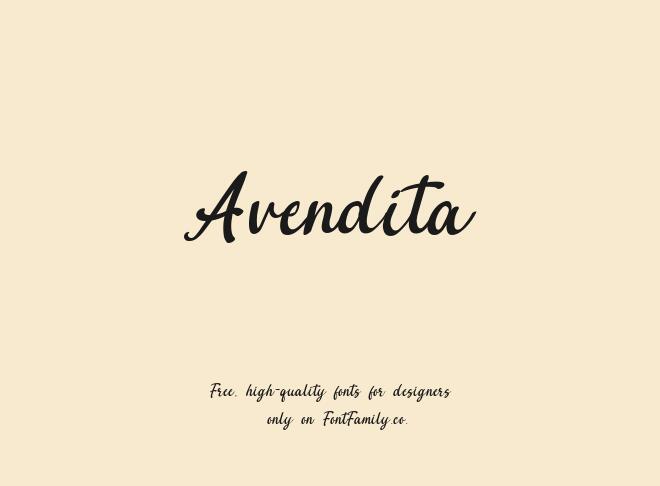
Avendita Font
Avendita Font is a modern and elegant script typeface designed by Foundry Co. With its smooth curves and flowing lines, Avendita Font brings a touch of sophistication to any design. It's a versatile script font that can be used in a variety of design scenarios, from branding and logo designs to invitations and social media graphics. Compared to other script fonts, Avendita Font stands out for its readability and unique character set. Its modern twist on classic script fonts makes it a great choice for designers looking to add a contemporary edge to their work. So, if you're seeking a font that combines elegance with modernity, Avendita Font should be your go-to choice.